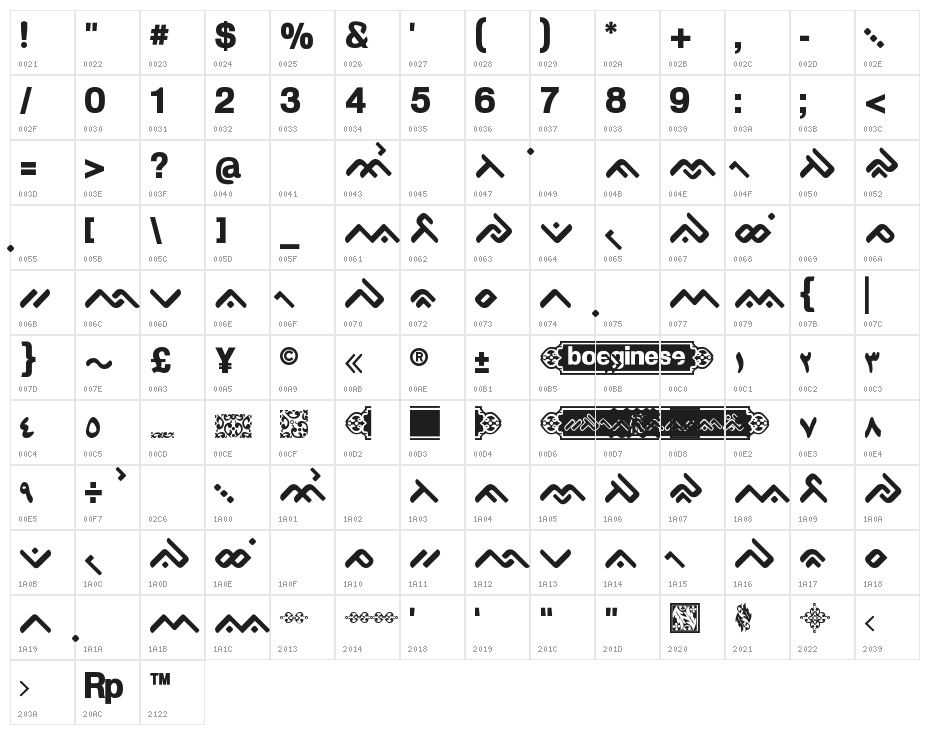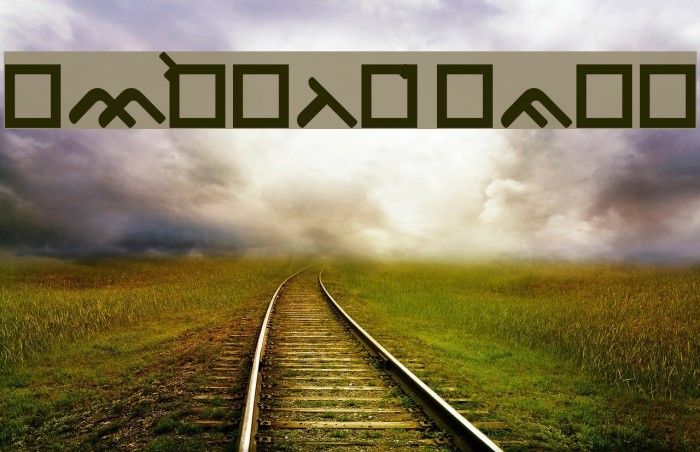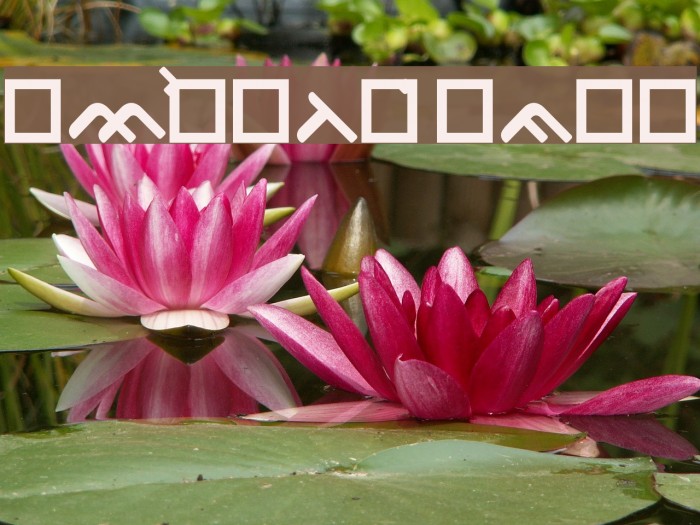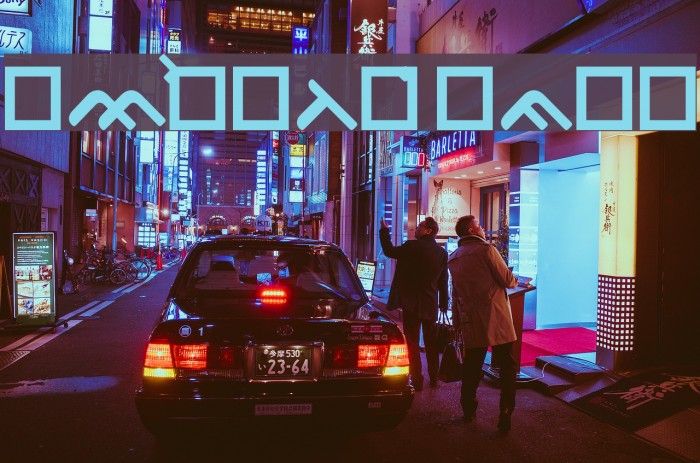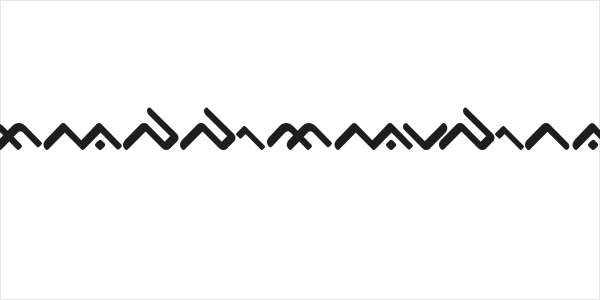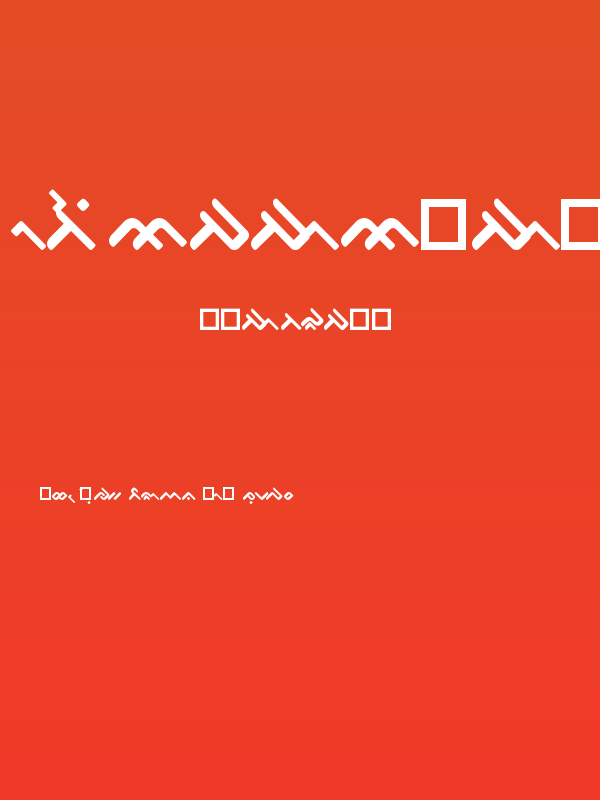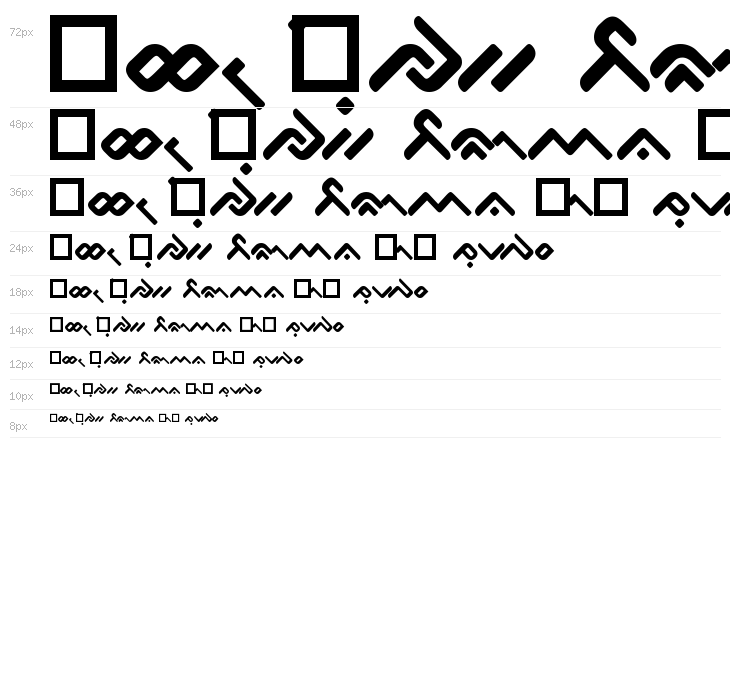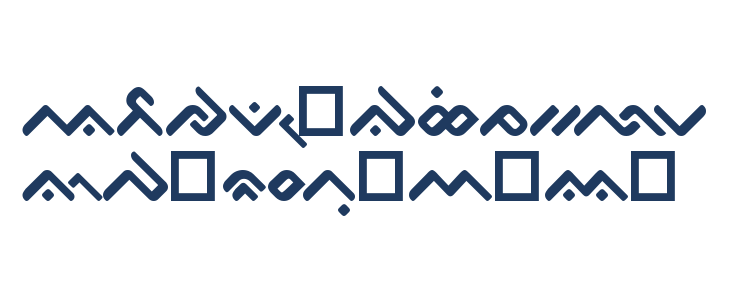
OgieCappoCampotype Font
OgieCappoCampotype Description
This font features a bold and geometric style with a strong presence. The characters are constructed with thick, uniform strokes, giving them a robust and modern appearance. The design incorporates sharp angles and straight lines, creating a sense of precision and clarity. The numerals are equally bold, maintaining the consistent weight and style of the alphabetic characters. Special characters are designed to match the overall aesthetic, ensuring a cohesive look across all glyphs. This font's distinct and assertive style makes it suitable for impactful designs.